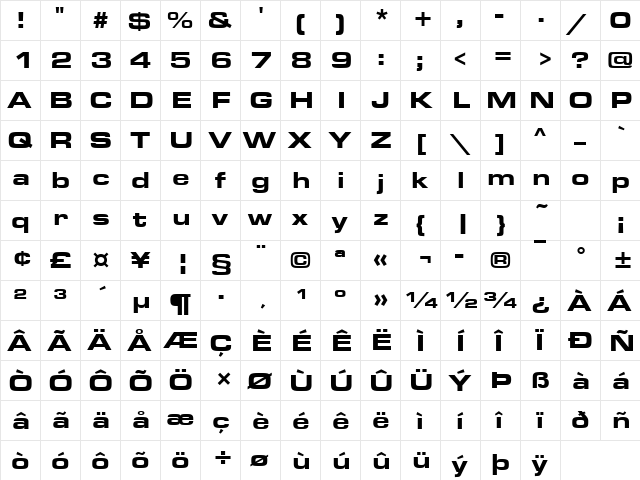
Eurostile Becker Black Extd Regular
Design Context for Eurostile Becker Black Extd Typeface
Eurostile Becker Black Extd takes a measured approach to typography — its balanced proportions and neutral character make it a reliable workhorse for both digital and print work.